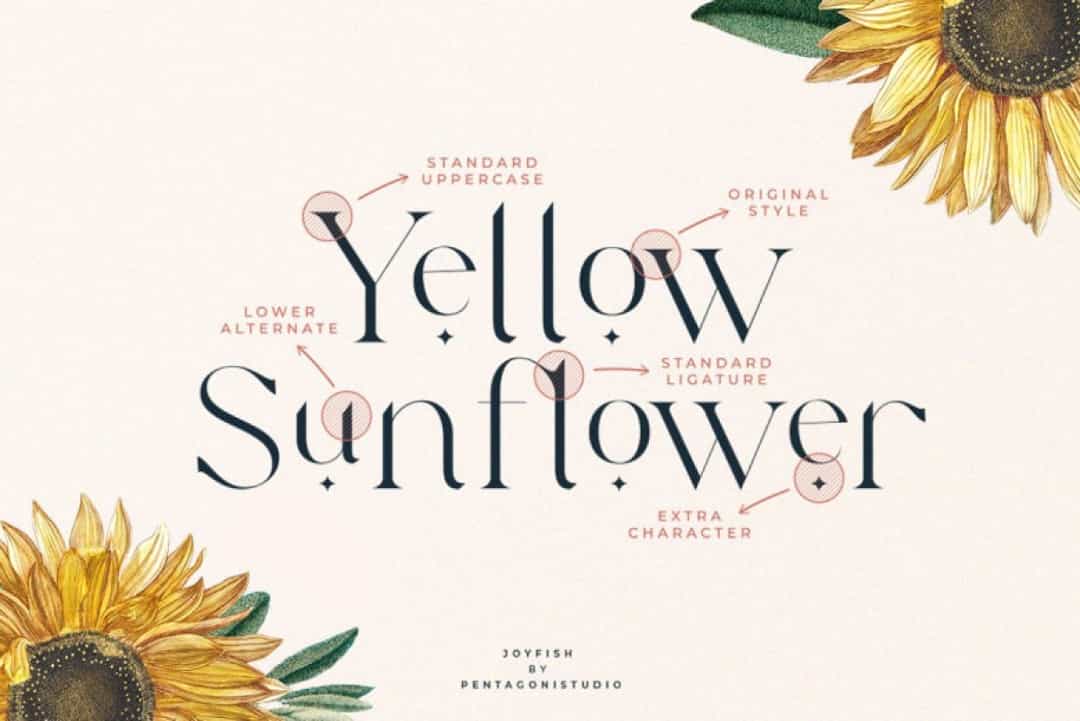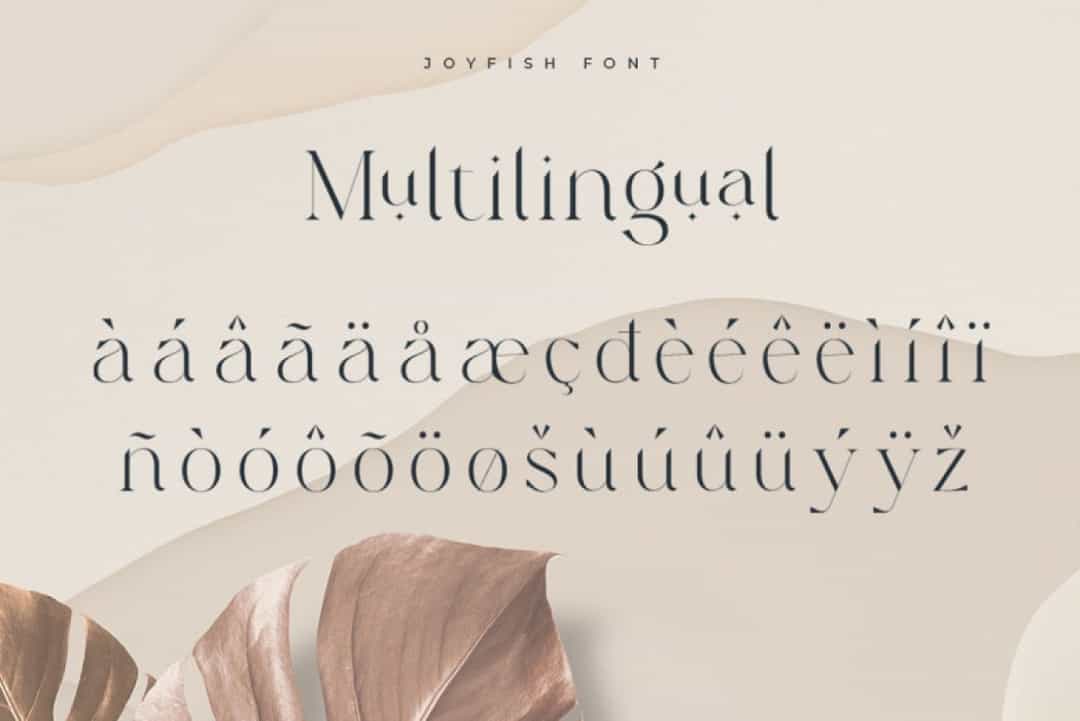
Joyfish is an lovely serif font inspired by luxury and feminine character. This font is perfect for branding, logos, social media, advertisements, product packaging, watermark, invitation, stationery, tshirt, prints, posters and more.